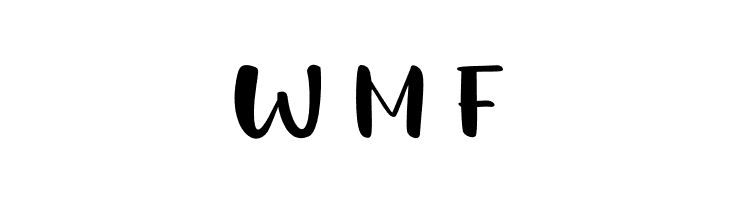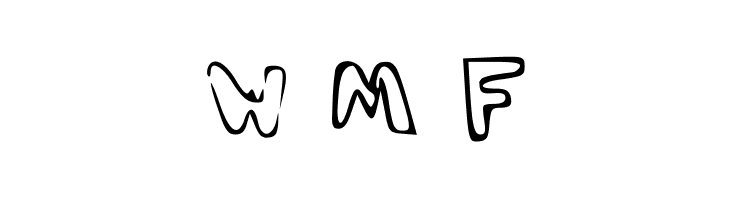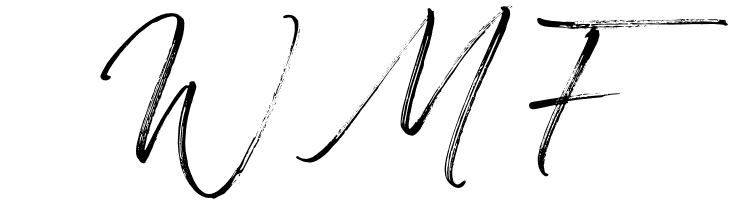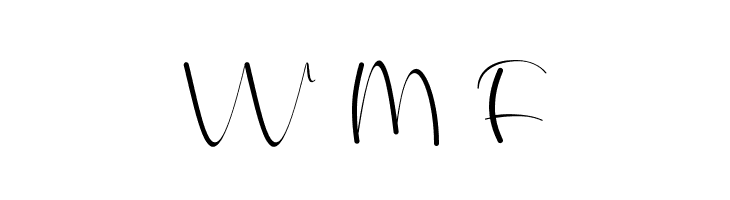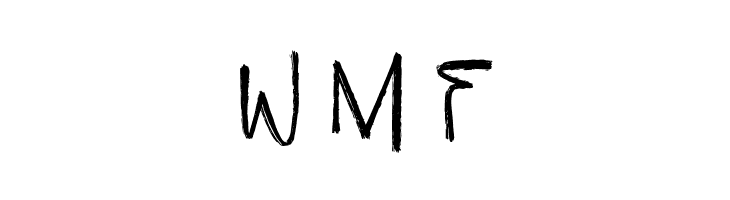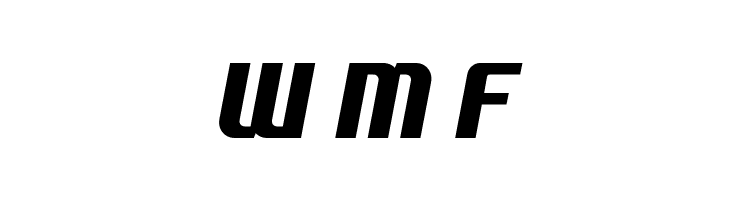
A dynamic, expressive handwritten font with fluid cursive letterforms.
A decorative script font with elegant swirls and playful loops.
A bold, hand-drawn font with a rough, brush-like texture.
An elegant and flowing script font with ornate uppercase and smooth lowercase letters.
A playful and flowing script font with a handwritten style.
A bold, handwritten font with dynamic and expressive strokes.
A bold, playful script font with a handwritten style.
A playful, hand-drawn font with a whimsical and dynamic style.
Bold, italicized sans-serif font with a dynamic style.
An elegant and flowing script font with a sophisticated, handwritten style.